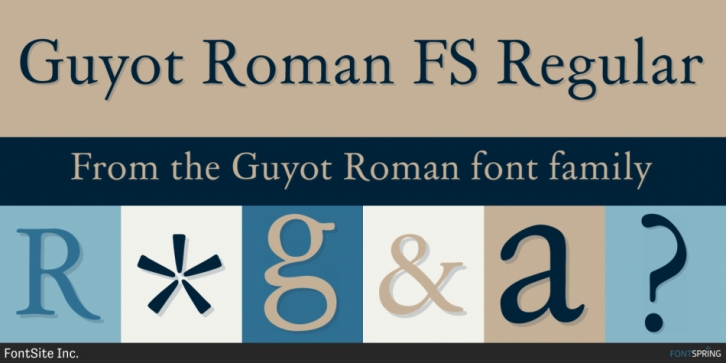
Guyot Roman is a serif font published by FontSite Inc.
Oldstyle garamond style intended for titling and display (biz cards, posters, documents etc) and you want to give an old world European look.